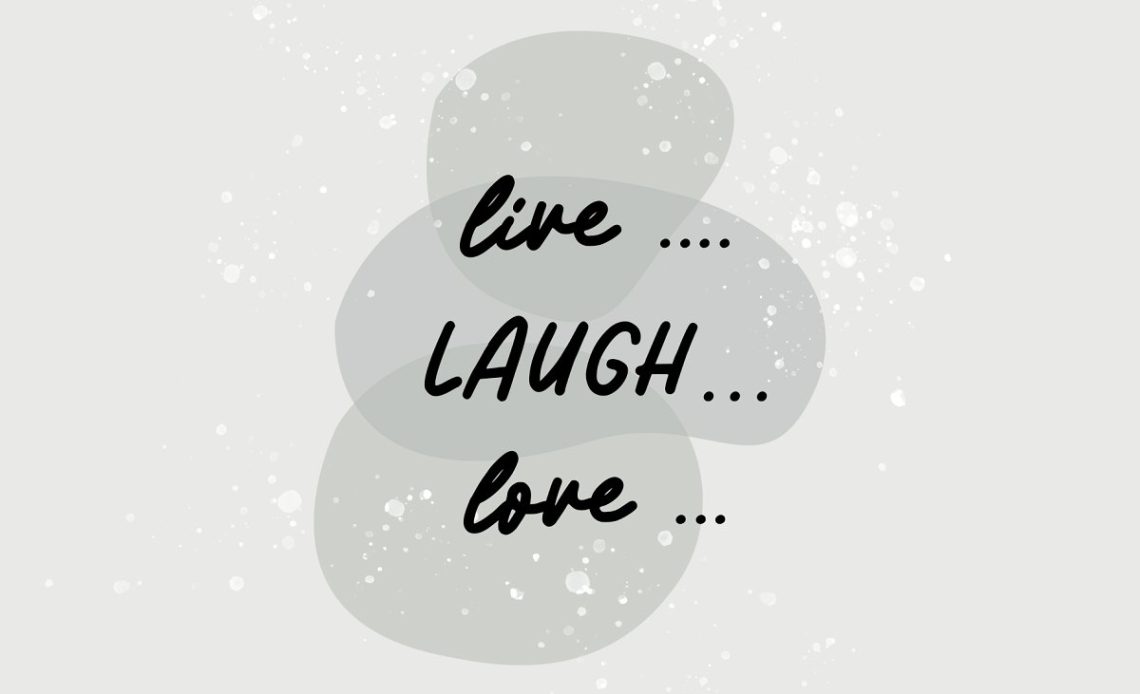
Introducing Couple Dream - Font Duo, a captivating and versatile script font family created by the talented Muhammad Mujibulloh. If you're in search of a font that adds a touch of charm and elegance to your creative projects, look no further!
Couple Dream is more than just a font duo; it's a gateway to expressing your emotions and capturing hearts. With its natural handwriting appearance, this cute pairing font duo is perfect for a wide range of applications. Let your quotes, greeting cards, books, papercraft, and daily notes come to life with the irresistible charm of Couple Dream.
Immerse yourself in the world of creativity as you explore the endless possibilities this font duo offers. Its unique and captivating design will effortlessly stand out, leaving a lasting impression on anyone who lays eyes on your artwork. Whether you're a seasoned designer or just starting your creative journey, Couple Dream is the perfect companion to elevate your projects to new heights.
With its carefully crafted curves and strokes, Couple Dream exudes a sense of warmth and authenticity. The flowing script font adds a touch of elegance, while the complementary sans serif font brings a modern twist. The combination of the two creates a harmonious balance that will captivate your audience and make your designs shine.
What sets Couple Dream apart is its ability to evoke emotions and create a connection. Its natural handwriting look adds a personal and heartfelt touch to your creations, making them relatable and memorable. Each stroke tells a story, and with Couple Dream, you have the power to make that story truly captivating.
Don't settle for ordinary when you can have extraordinary. Immerse yourself in the enchanting world of Couple Dream and watch your designs transcend the ordinary into something extraordinary. It's time to unleash your creativity and let Couple Dream be your guide.